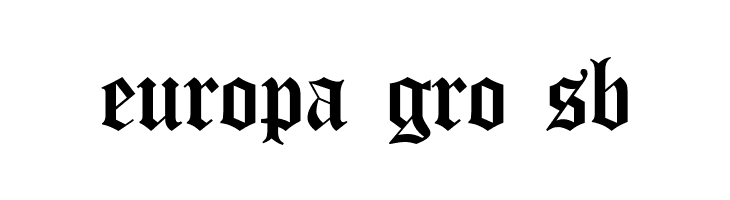
A classic blackletter font with ornate, angular strokes and a bold, structured appearance.
A bold, graffiti-style font with dynamic, edgy characters.
A bold, graffiti-inspired font with angular, sharp edges and a decorative style.
A bold, decorative font with playful, high-contrast letterforms.
A bold, playful font with rounded characters and a vintage flair.
A playful, bubbly font with bold, rounded shapes and a whimsical design.
A bold, candy-striped font with a playful and festive style.
A bold, artistic font with playful, irregular forms and thick strokes.
A distressed, grunge-style font with a textured, vintage appearance.
An elegant script font with flowing, cursive letterforms and ornate flourishes.
A bold, intricate Blackletter font with dramatic, angular lines and ornate details.
A bold, modern sans-serif font with excellent readability and versatility.
A bold, oblique sans-serif font with a modern and dynamic style.
A modern sans-serif font with an oblique slant, offering a clean and dynamic appearance.
A clean, modern sans-serif font with balanced proportions and excellent readability.
A bold blackletter font with intricate, angular letterforms and a medieval aesthetic.
A bold, Gothic-style font with ornate serifs and medieval elegance.
A bold, modern font with a strong presence and classic elegance.
A classic Blackletter font with ornate, angular strokes and high contrast.